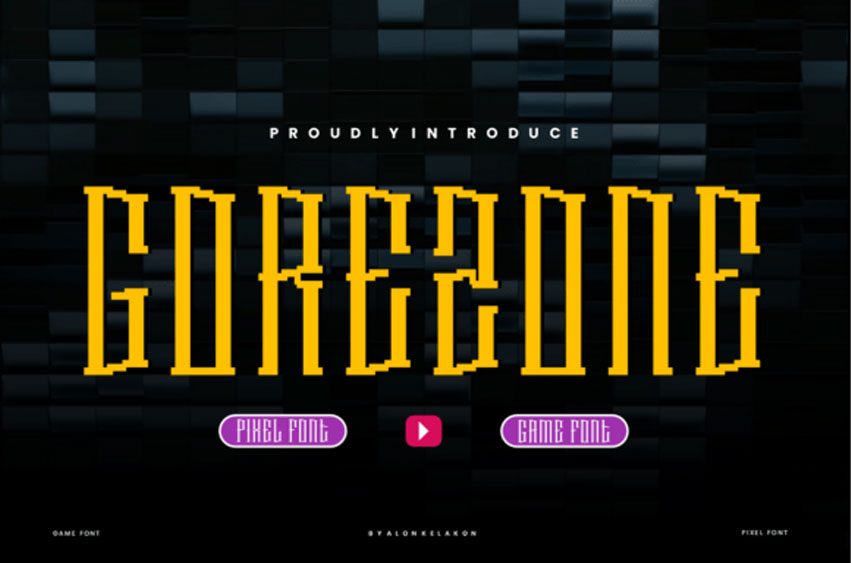
Gorezone Font
Gorezone Font is a unique and interesting slab serif font.
A little bit quirky, this font looks incredibly adept in a wide variety of contexts!